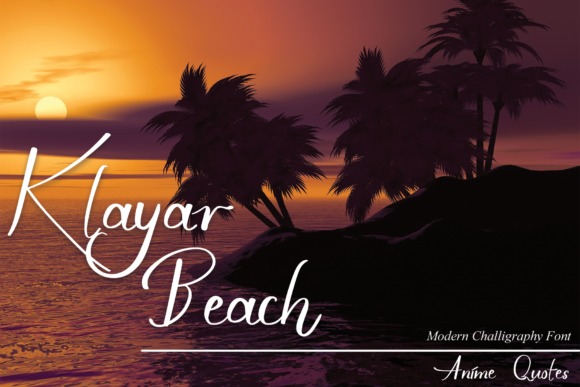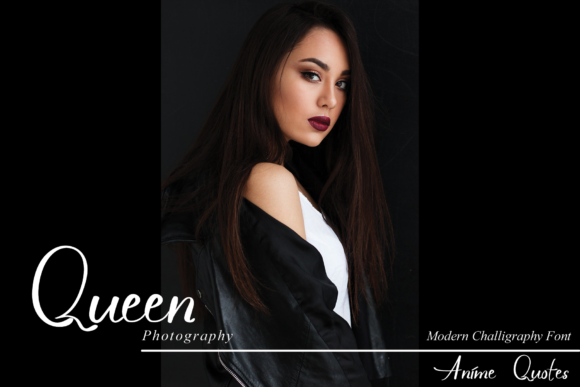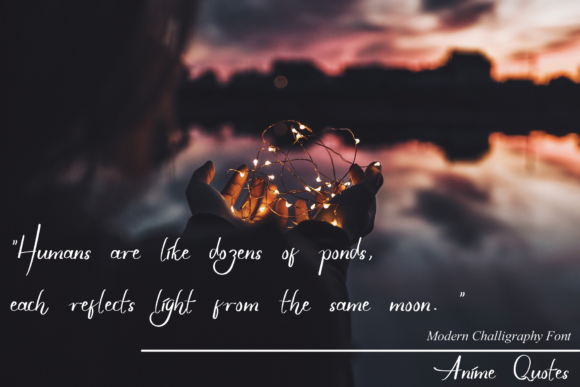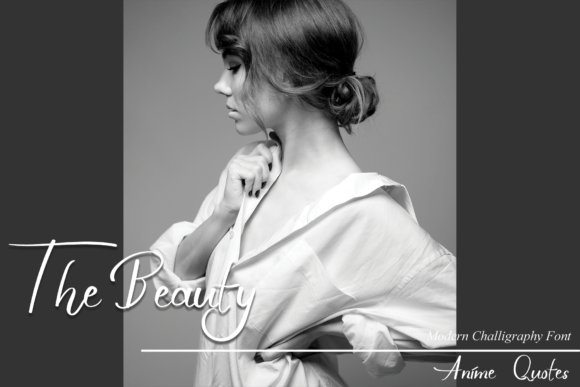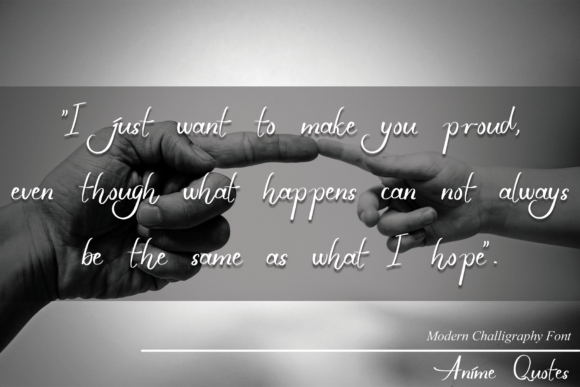
Bringing Emotion to Your Designs: The Magic of Anime Quotes Font
Have you ever stumbled upon a beautiful anime scene, and the characters’ dialogue left you breathless? The way the words danced across the screen, blending with the artwork, created an unforgettable experience. This is what we strive for when using the perfect font in our designs – to evoke emotions and transport our audience to a world of wonder.
Anime Quotes Font is a stunning calligraphy typeface designed to bring a touch of luxury and romance to any design project. Its unique characters that dance along the baseline will add a whimsical charm to your work, making it stand out from the crowd. For designers, this font is a valuable asset, offering endless possibilities to express creativity and tell compelling stories.
Anime Quotes Font Key Features
- Unique Character Set: Anime Quotes Font features a unique set of characters, including Japanese and Korean characters, as well as special symbols and emoticons, making it ideal for creating visually appealing and culturally relevant designs.
- High-Quality Graphics: Anime Quotes Font includes high-quality graphics, including intricate details and textures, adding a touch of sophistication and elegance to any design.
- Multi-Language Support: The font supports multiple languages, including English, Japanese, Korean, and Chinese, making it an excellent choice for global branding and marketing campaigns.
Designer Review: Anime Quotes Font
I recently had the chance to work with the Anime Quotes Font, and I wanted to share my honest thoughts about this font.
- Unique aesthetic: The Anime Quotes Font has a distinct style that’s perfect for those looking to add a touch of anime flair to their designs.
- Wide character set: The font includes a wide range of characters, including Japanese kanji and katakana, making it suitable for various design projects.
- Good legibility: The font is relatively easy to read, even at smaller font sizes, which is essential for text-heavy designs.
- Limited font weight options: The font only comes in a few weights, which may limit its versatility in certain design projects.
- No italic or bold variants: The font doesn’t include italic or bold variants, which can be a drawback for designs that require these styles.
- Not suitable for body text: While the font is legible, it’s not the most comfortable to read for extended periods, making it better suited for titles and headings.
Overall, the Anime Quotes Font is a great addition to any designer’s toolkit, especially for projects that require a unique anime-inspired aesthetic. However, it’s essential to be aware of its limitations and use it judiciously in your designs.
The Anime Quotes Font is perfect for creating eye-catching social media posts, flyers, and posters. It’s also great for adding a touch of anime-inspired flair to your presentations and documents.
Some popular use cases include:
- Creating quotes and sayings with a Japanese or anime-inspired theme.
- Designing social media posts and flyers for anime or manga-related events.
- Adding a touch of anime-inspired flair to presentations and documents.